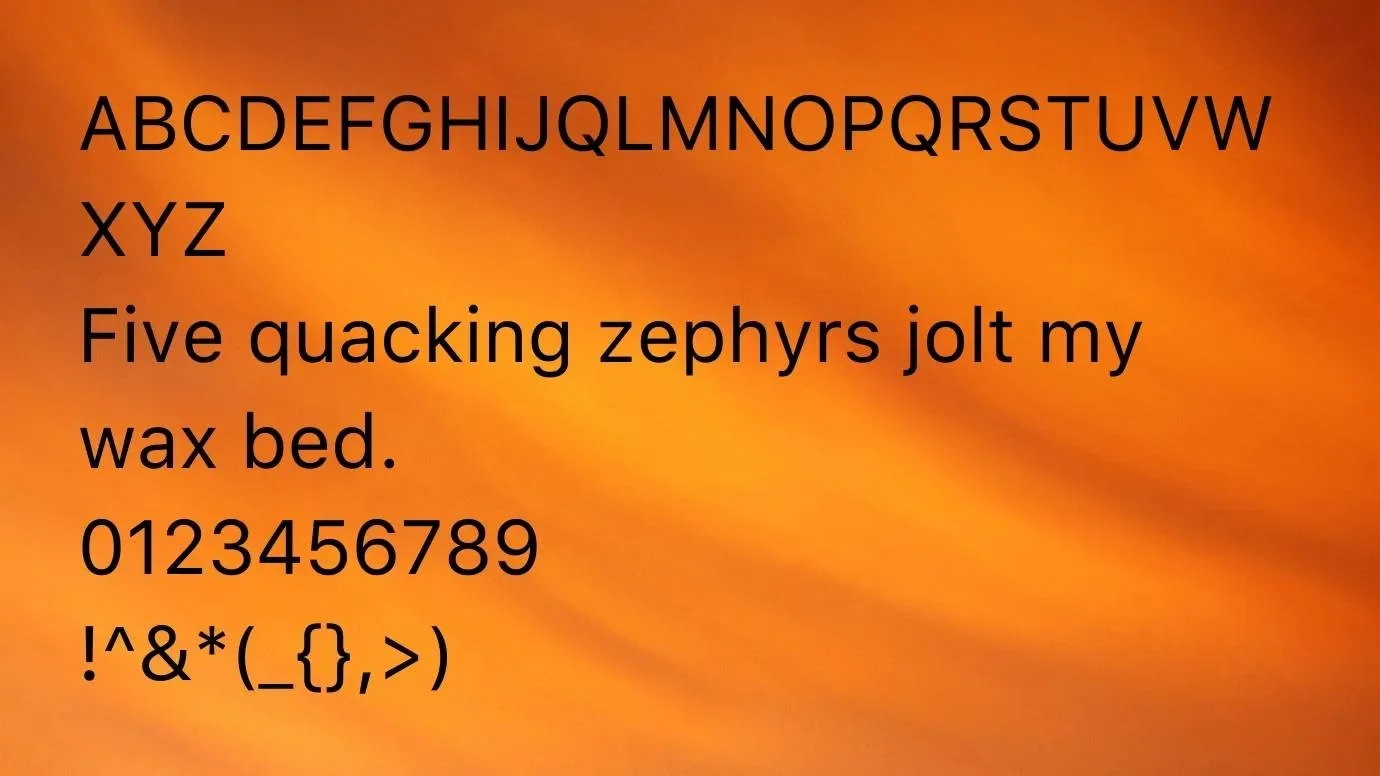
Let’s present you with a clean, legible, and modern typeface that belongs to the sans serif typeface family named SF UI Text font. It was designed and shared in 2015 by Apple Incorporation. This is an American typeface family that was designed on the occasion of Apple WWDC 2015. Currently, It is available in 3 variations that are highly legible on both Mac and PC devices.
This font family consists of 12 styles and 6 weights including regular, italic, bold, light, medium, and heavy, each weight has many futuristic alternates. Due to its multiple features, it is the most well-known font for its characters. Moreover, its thin swashes are excellent same as you can find in the Unica One font. You can get a standard look in your designs with the use of Raleway font.
However, this typeface has OpenType and TrueType features that is provide 8 various patterns like Usual, Gentle, Daring, Black plus Italic. All these features and ligatures make it a perfect font for all display textual content. You can free download this excellent typeface for your personal projects.
Reason to Use SF UI Text Font
This typeface has extended features, high-quality ligatures, which make it perfect for a huge list of designs, for example, website designing, app development, display projects, Product packaging, and Brands. This typeface will make your headlines and titles more astonishing. It is also perfect for creating your shop/store names, post descriptions, articles, Powerpoint presentations, labels, etc.
If you searching for a font that makes your designs very unique from others then this font is for you. I recommend you to use this font with the pairing of Raleway font. You can create interesting designs with this combination such as Logo designs, Movie Posters, Book Covers, Business cards, Invitation cards, Brochure layouts, Templates, Homeware designs, Website and Blog pages designs, Catalogs, and more.
SF UI Text Font View
What fonts are similar to SF UI Text font?
You can get many similar fonts to this typeface on the web like P22 Underground font, Tuffy Regular Font, Raleway Font, and many more. But the styling of the Fabrica font is very close to this typeface.
What is SF UI Text font?
This is a wonderful sans serif typeface family that comes in 12 styles and 6 weights from regular to heavy. This is an American typeface that contains many variants and high-quality ligatures that would be great for any size text.
Who designed the SF UI Text font?
This font belongs to the sans serif typeface and it was designed and published in 2015 with the aid of Apple Inc.